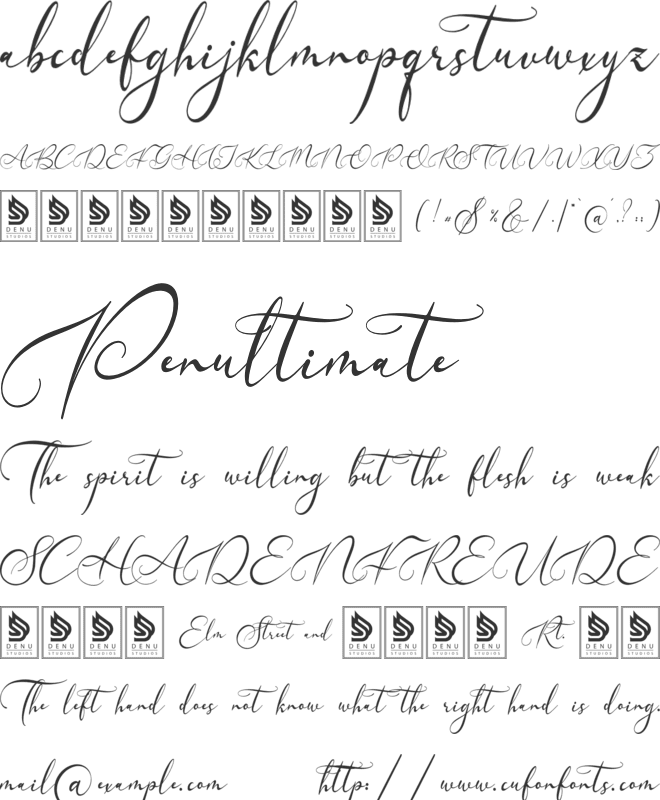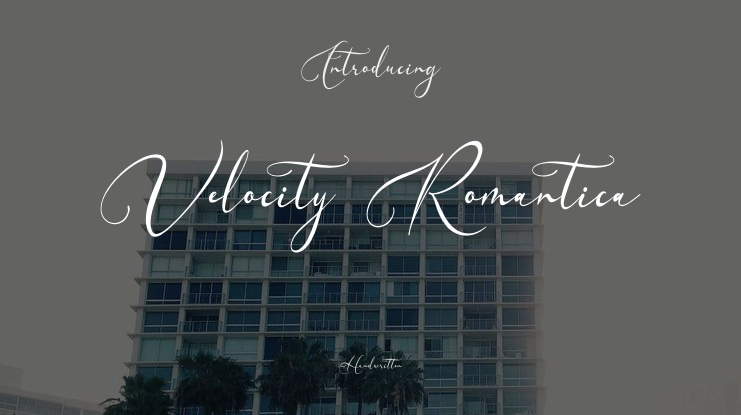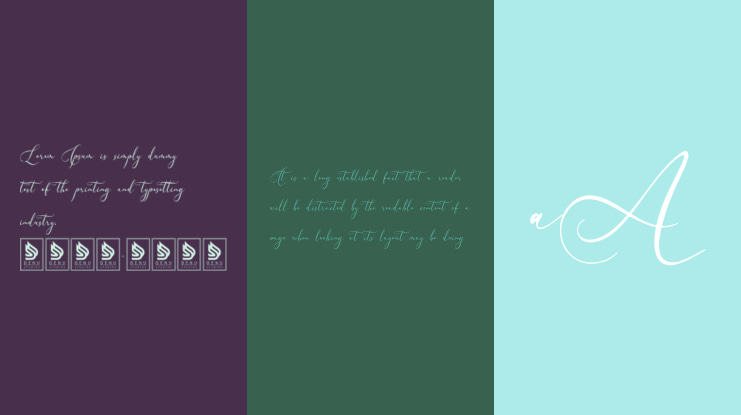
Velocity Romantica | Modern Calligraphy product packaging, mugs, quotes, posters, shopping bags, t-shirts, book covers, name card, invitation cards, greeting cards, label, photography, watermark, special events, and all your other lovely projects that need a Modern Calligraphy taste.